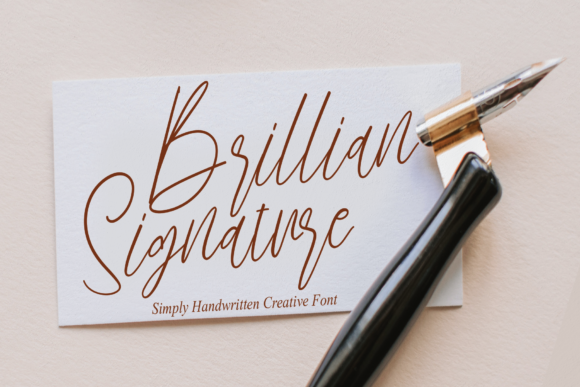
The Elusive Perfect Font: My Encounter with Brillian Signature
Ah, the quest for the perfect font – a journey familiar to many designers, crafters, and creative hobbyists. I recall a particularly frustrating project where the right font seemed like a mirage on the horizon. My client wanted a logo that exuded elegance and sophistication, but my usual go-to fonts just weren’t cutting it. That’s when I stumbled upon Brillian Signature, a thin lettered and stylish script font that would change the game.
An Honest Review of Brillian Signature
So, what makes Brillian Signature special? Let’s dive into the good stuff and, of course, a few quirks I’ve noticed.
• ✨ Its versatility – Brillian Signature shines in various contexts, from logos and t-shirt printing to creative products and more.
• ✅ Elegant and stylish – this font adds a touch of sophistication to any project.
• 💫 Legibility – even at smaller sizes, Brillian Signature remains clear and easy to read.
• 🎨 Customization options – with OpenType features and glyphs, you can experiment with different styles to match your brand’s tone.
• 🤔 Limited use in body text – while Brillian Signature is stunning, it’s best used sparingly. Its elegance might get lost in longer blocks of text.
• ⚠️ Kerning issues on certain platforms – I’ve noticed that some platforms might require manual kerning adjustments to ensure the text looks its best.
A Practical Guide to Using Brillian Signature
The Story Behind Brillian Signature
Brillian Signature was crafted with love and care by a talented type designer who aimed to create a font that would bring a touch of elegance to any project. Inspired by classic calligraphy and modern digital design, Brillian Signature is the result of meticulous attention to detail and a passion for beautiful typography.
Font Name Brillian Signature Font
Author Creativewhitee
Q: What makes Brillian Signature suitable for logos?
A: Brillian Signature’s unique blend of elegance and style makes it perfect for logos, offering a distinctive and memorable visual identity.
Q: Can I use Brillian Signature for body text?
A: While Brillian Signature is stunning, it’s best used sparingly. Its elegance might get lost in longer blocks of text, making it more suitable for headlines and titles.
Q: Is Brillian Signature available in different weights or styles?
A: Brillian Signature comes with various OpenType features, glyphs, and stylistic alternates, allowing for some flexibility in styling. However, it does not have multiple weights.